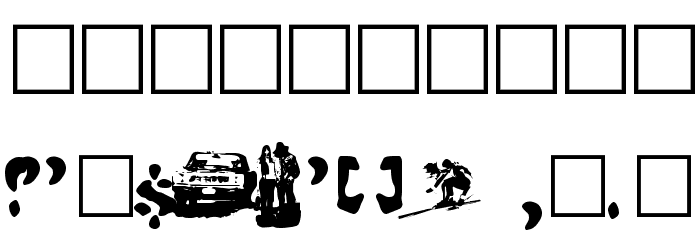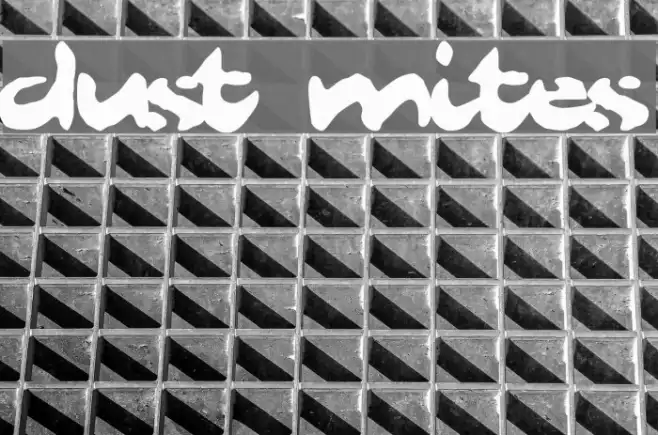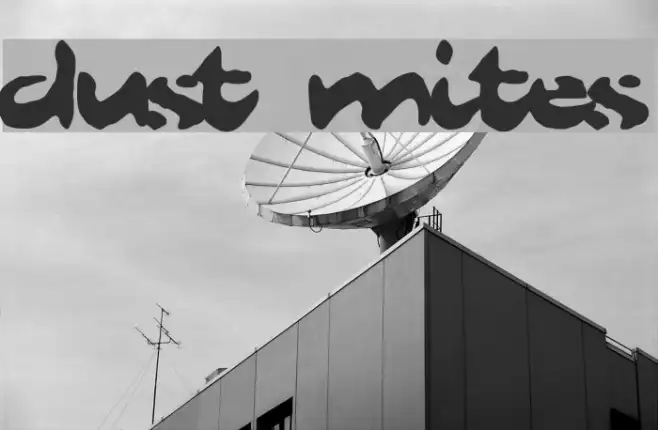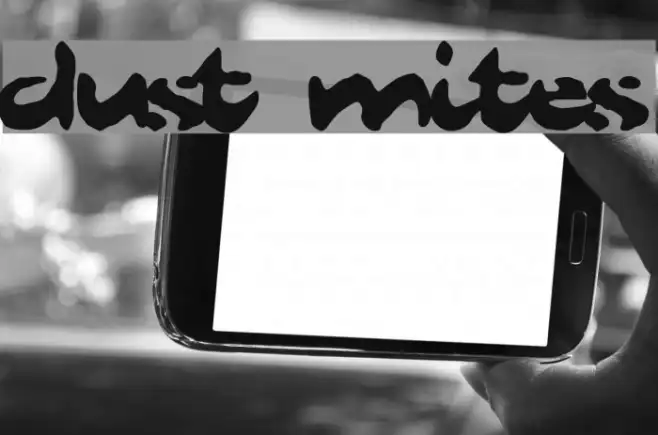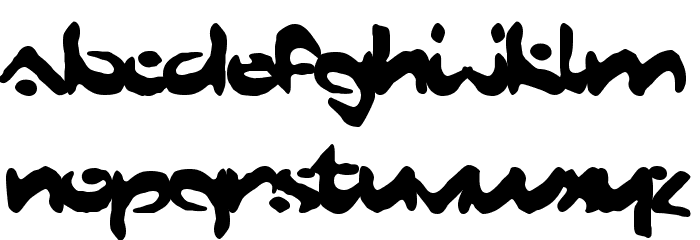
Dust Mites Font
This font features a highly stylized and artistic script design, characterized by its fluid and dynamic strokes. The letters are interconnected with a flowing, cursive style that gives it a handwritten appearance. The bold, sweeping lines create a sense of movement and energy, making it stand out as a decorative choice. The font lacks traditional structure, opting instead for a more freeform and expressive approach. This results in a unique and eye-catching aesthetic that is both modern and artistic. The characters are densely packed, with tight spacing that enhances the overall visual impact. The font's high contrast between thick and thin strokes adds to its dramatic flair, making it suitable for creative and unconventional projects.
| Overall Style | Artistic |
| Use Case | Logos, Posters, Creative Designs |
| Proposed Projects | Ideal for artistic projects, branding, posters, and creative designs that require a distinctive and expressive touch. |